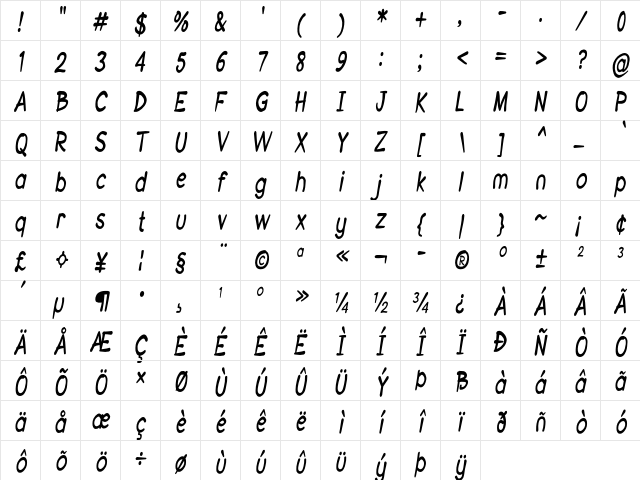
Sketchtopia Condensed Italic
Style: Condensed Italic
Sketchtopia Condensed Italic
Design Context for Sketchtopia
Sketchtopia is a composed and adaptable typeface that performs quietly and consistently across a wide range of design contexts. The slanted form adds forward momentum and visual energy. Its narrow stance lets it pack a punch even in space-constrained designs.
Pro Tip: Use Sketchtopia for emphasis, pull quotes, and subheadings where its slanted energy can add rhythm to the layout.